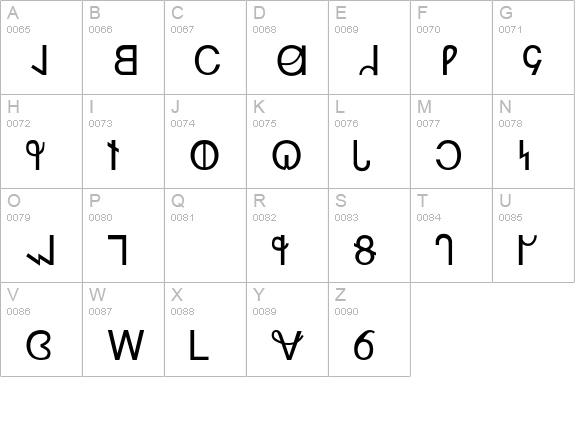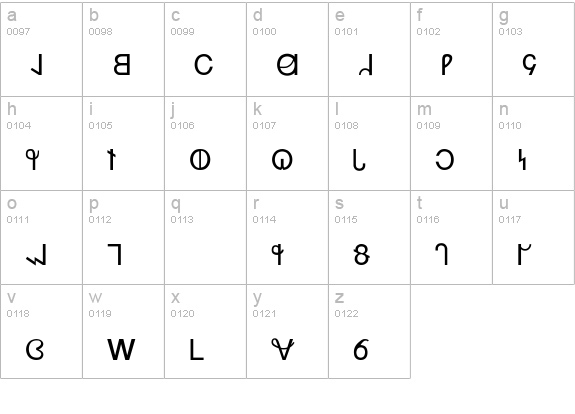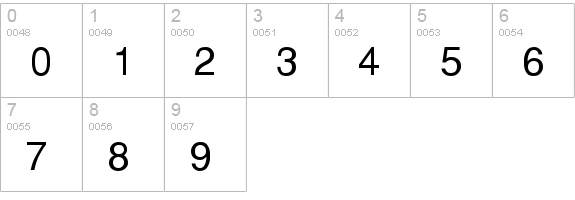
Desert Font Details
The Desert font captures the rugged beauty and timeless elegance of the arid landscapes. Its bold yet graceful strokes evoke the vast expanse of sand dunes and the play of light and shadow under the scorching sun. The Desert font is a versatile typeface that brings a touch of the wild and untamed to any design project. Best of all, the Desert font is available for free download at FontsMarket.com. Now you can bring the essence of the desert into your creations without any cost. Whether you're designing a poster for a western-themed event or creating a logo for a travel company, the Desert font is sure to add a touch of adventure and mystique. Download it today and let your creativity roam free in the vast desert of possibilities.